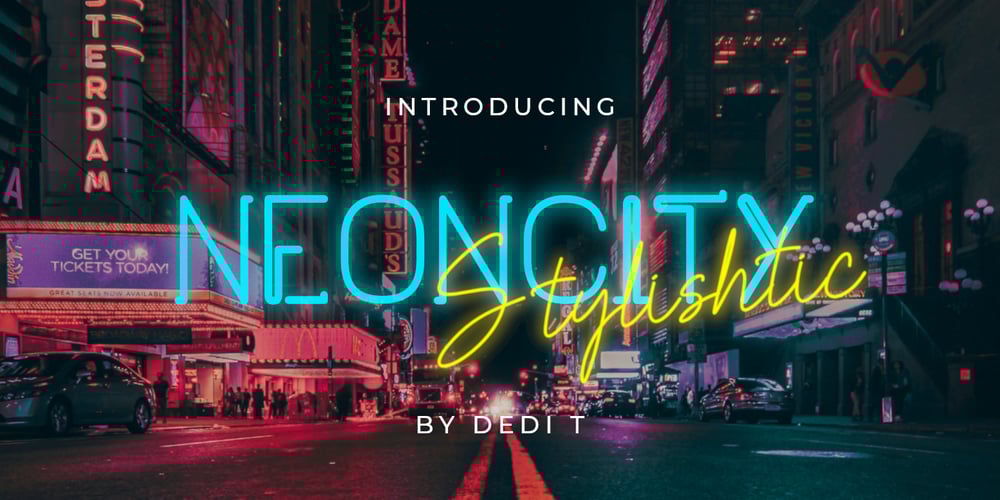
Neoncity
Neoncity font
Neoncity Font Family was designed by Dedi Tri Anggara and published by PandAE86. Neoncity contains 2 styles and family package options. Neoncity is a bold and fresh display font with a vintage feel. Inspired by the flashing 80’s, it will add a distinct look to any design project. This font is perfectly used in larger type sizes, above 48 pt. Neoncity is perfect for a design that wants to imitate neon—use it in Photoshop, InDesign, Illustrator or Corel with color & blend effects, and its geometry also lends itself for signage, packaging, posters, branding, event invites, quote, blog posts, social media, and more! Thanks and have a wonderful day, Dedi T